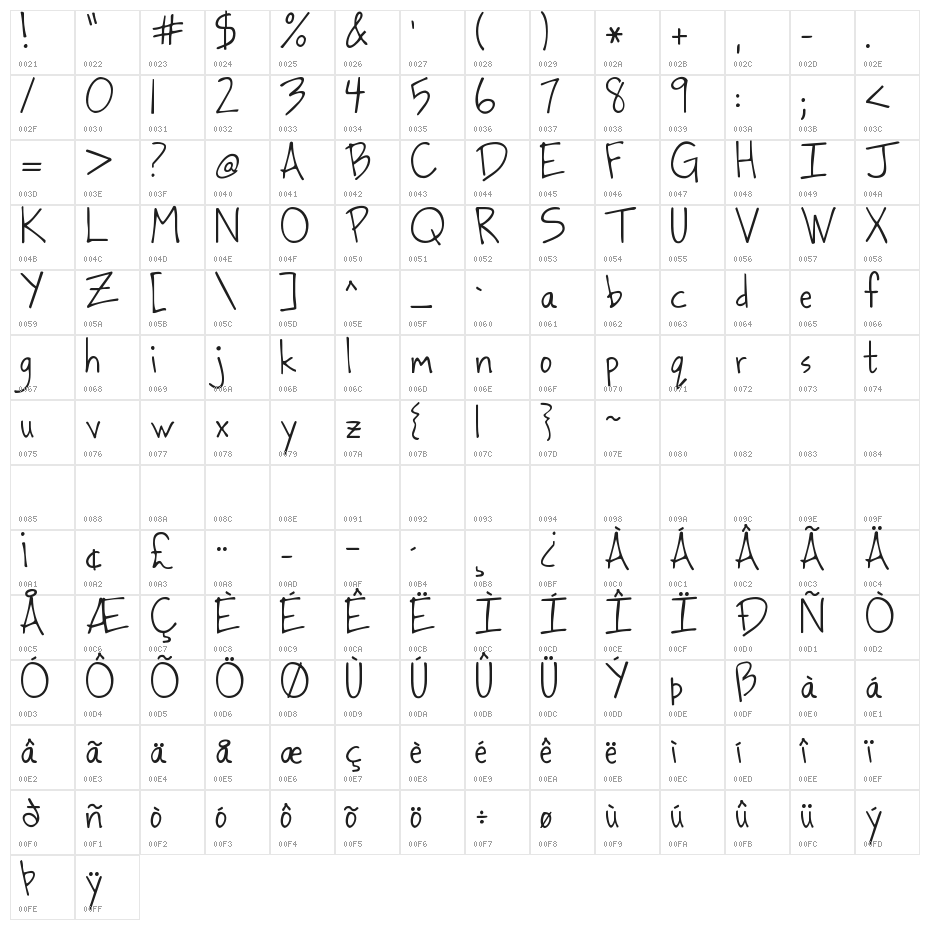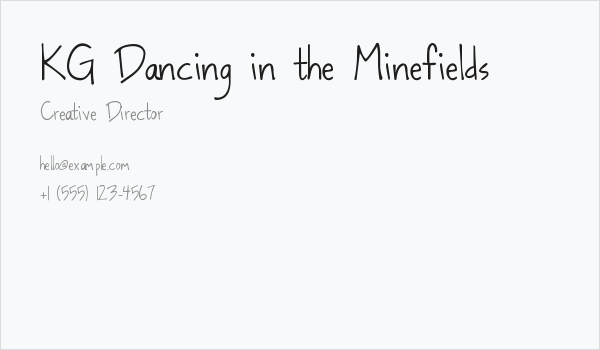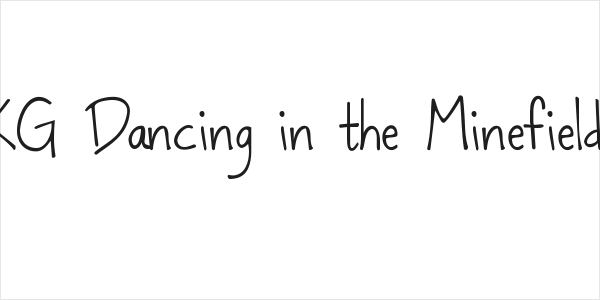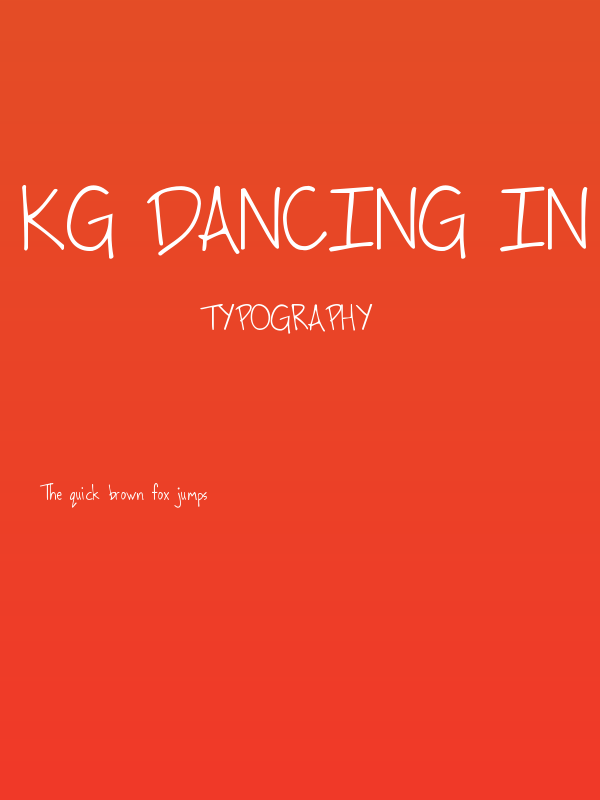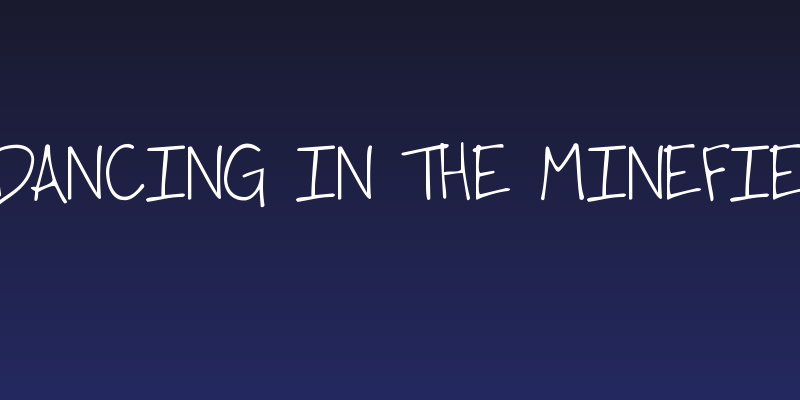
KG Dancing in the Minefields Font
KG Dancing in the Minefields Description
This playful and whimsical font features a handwritten style with a casual, informal appearance. The letters are slightly uneven, adding a touch of personality and charm. The uppercase and lowercase characters maintain a consistent flow, with rounded edges and a slight tilt that gives the text a dynamic feel. The numbers and special characters are crafted with the same playful spirit, ensuring a cohesive look across all elements. This font is perfect for projects that require a friendly and approachable tone, such as children's books, greeting cards, or creative branding materials.
| Proposed Projects | Ideal for children's books, greeting cards, creative branding, and playful designs. |